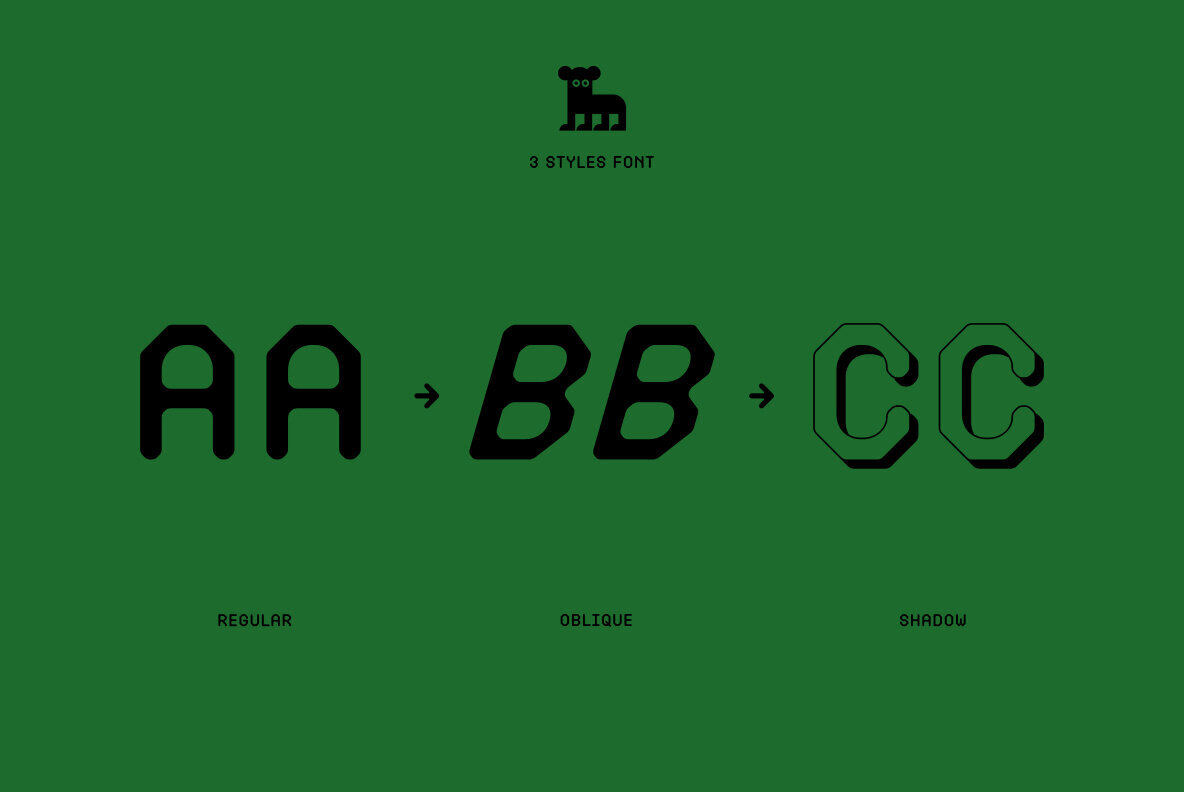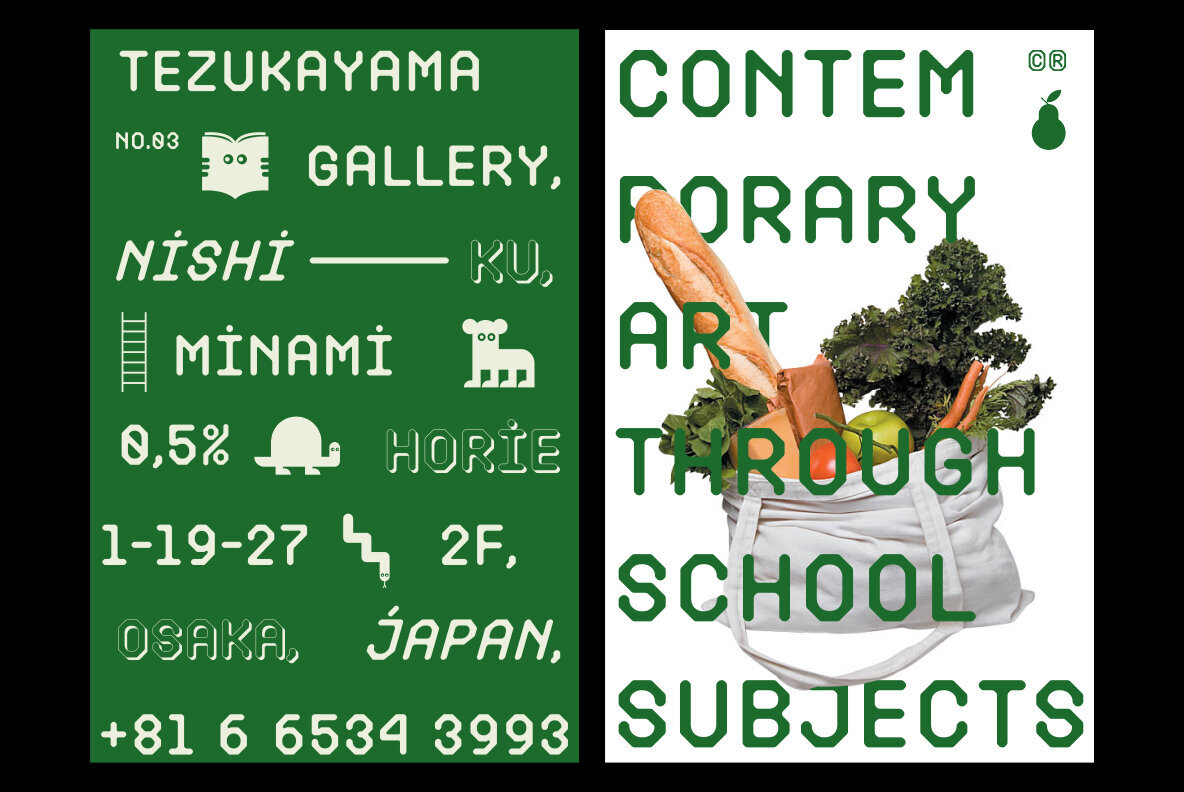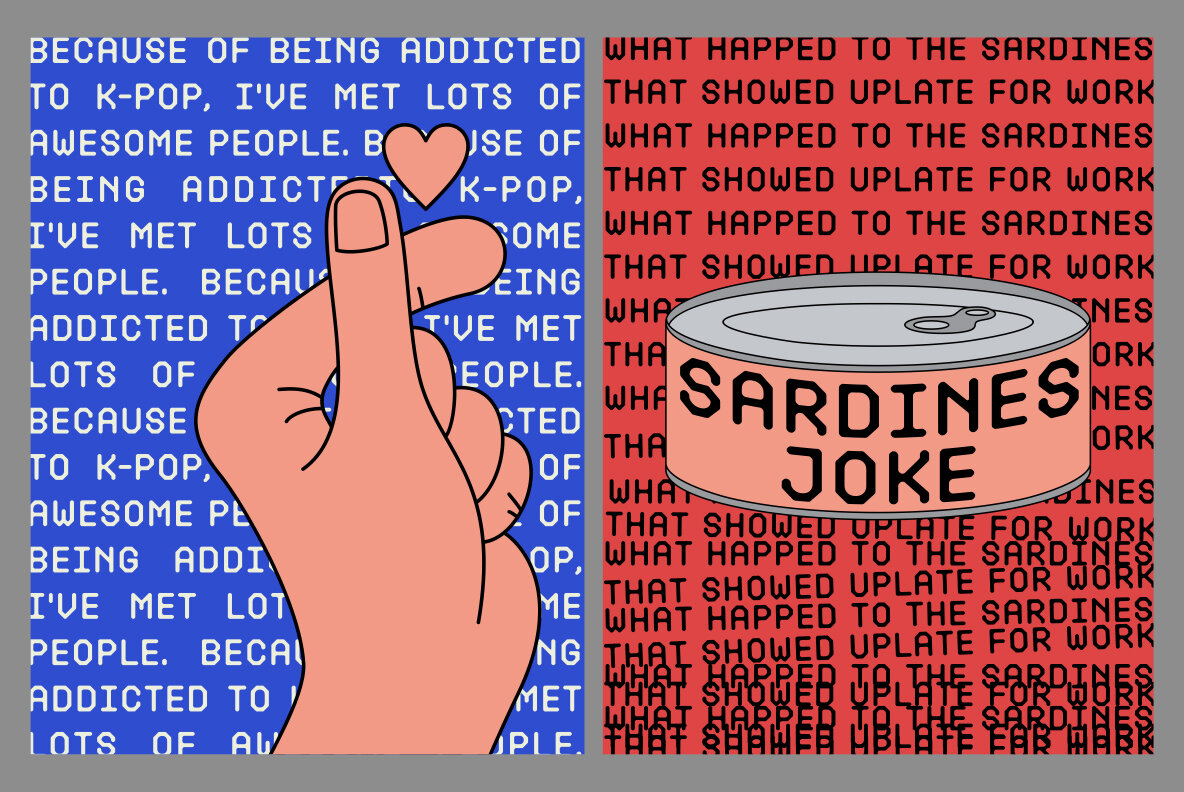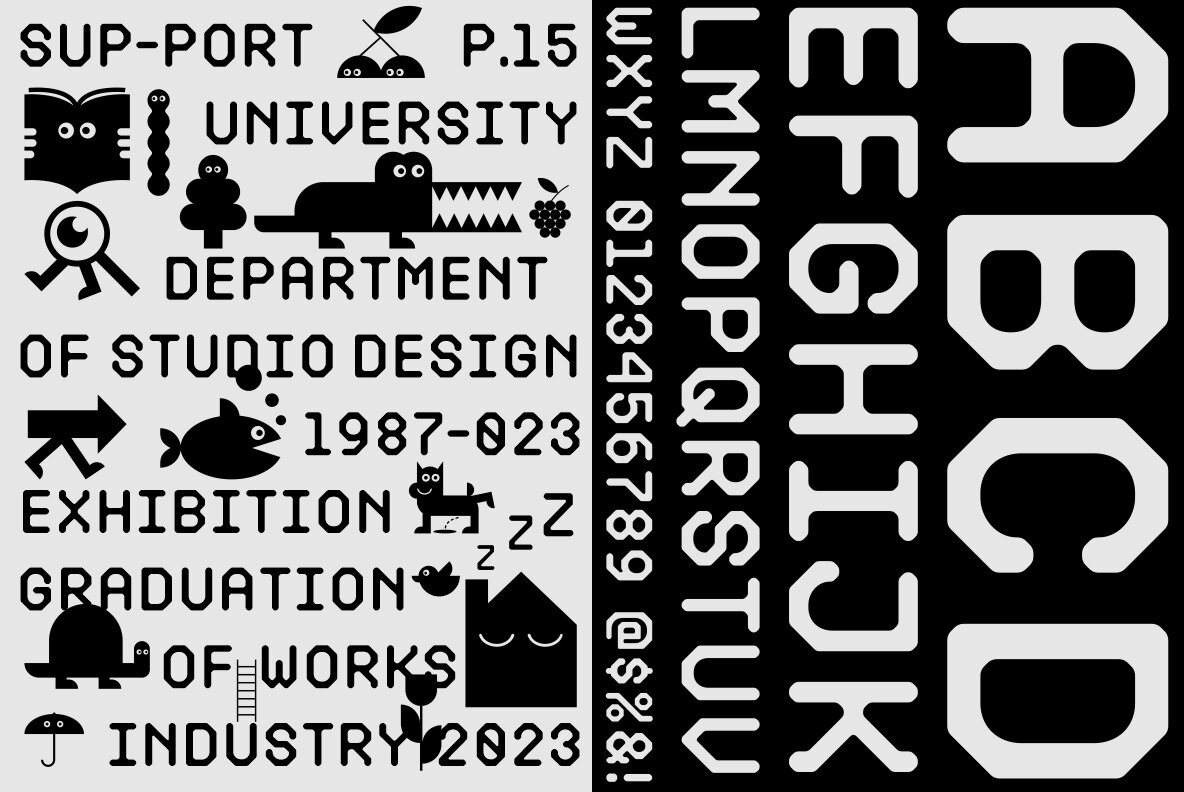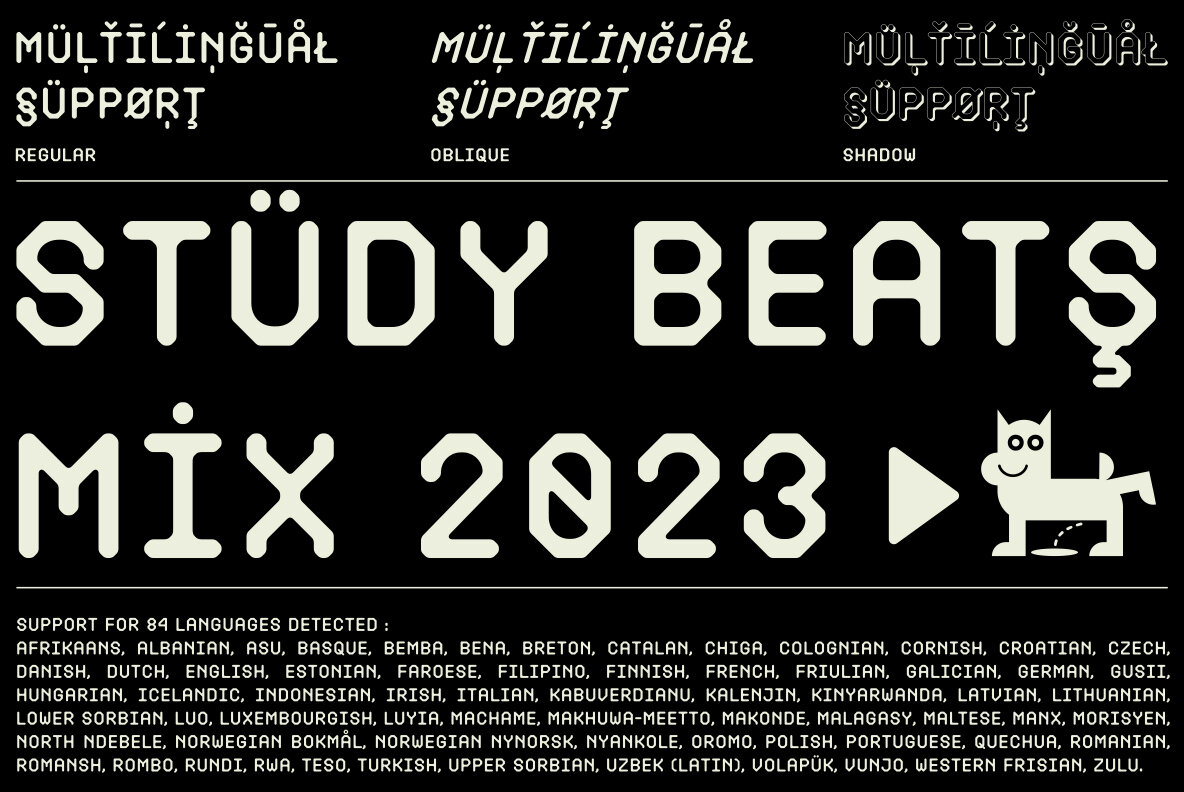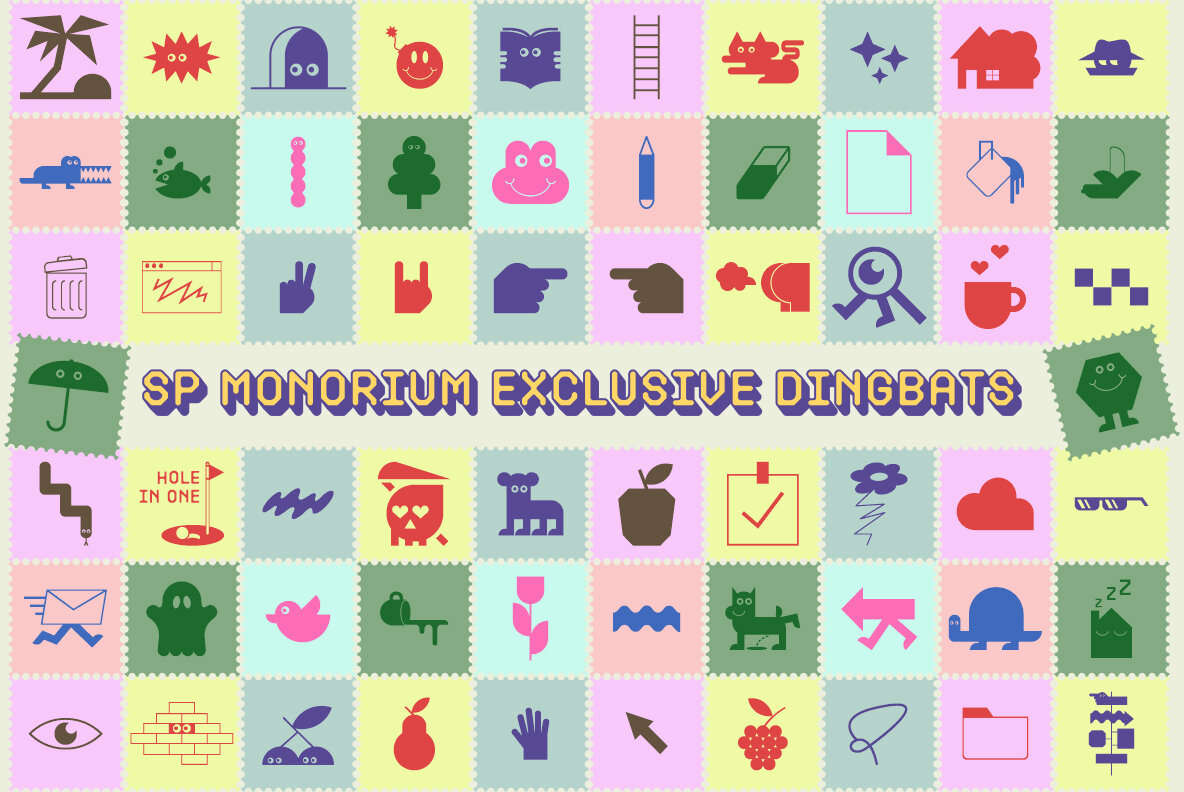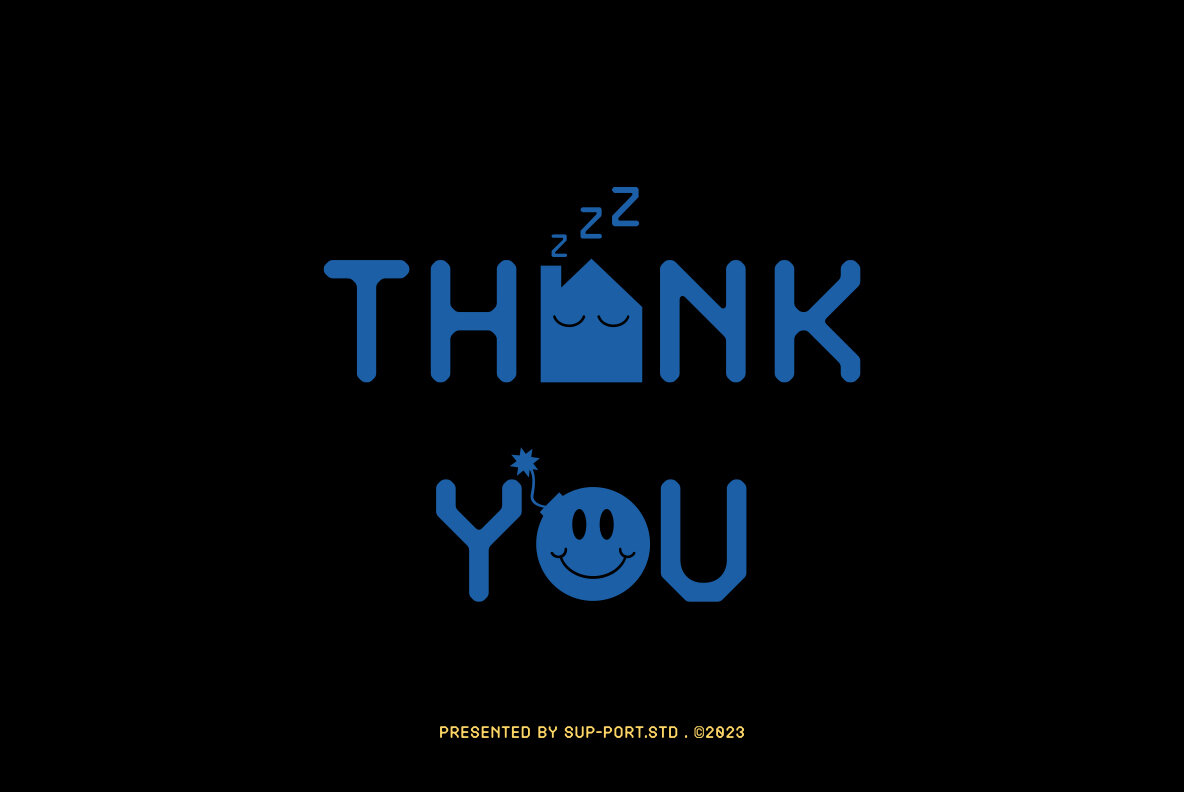
SP Monorium Font
SP MONORIUM is a bundled collection of 4 Style Exclusive Monospace Modular fonts (Regular, Slant, Shadow & Dingbat) following the current trends, Street, Signage, Movie, Modern, and carefully crafted.
These bundles would be perfect to combine in your design. The typeface comes with OpenType features like ligatures and ordinal, as well as multi-lingual support, currency figures, numerals, punctuation, and arrow.